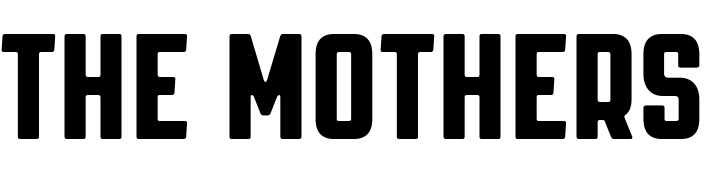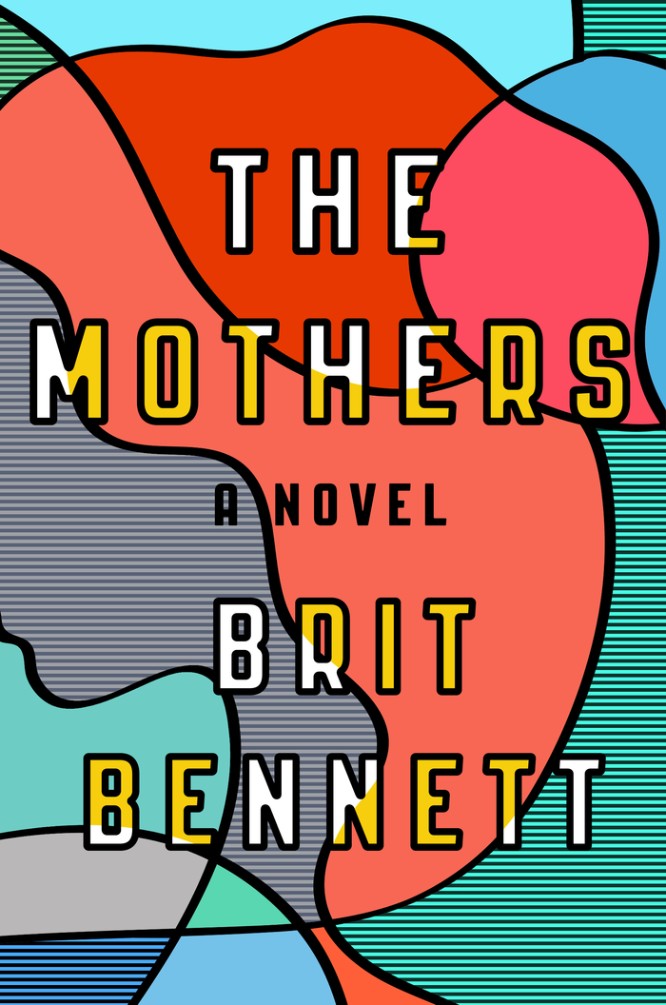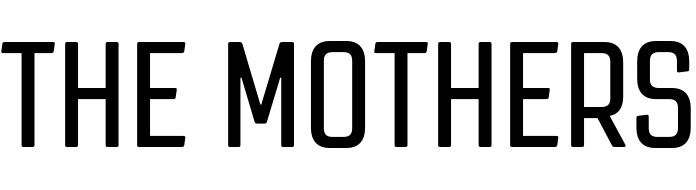
The Mothers Font
BookThe Mothers is a novel by Brit Bennett, published in 2016. It is a coming-of-age story about a young woman named Nadia Turner, who is struggling with the loss of her mother and the choices she makes in the wake of that loss.
PAG Revolucion from Prop-a-PAG ganda's Sans typeface is really similar to the sans serif font used for the book title lettering. The retro propaganda posters and wall paintings from Cuba's 1960s to 1980s served as the inspiration for the single-weight font. Then PAG Revolucion was updated and extended by the Flat-it type foundry, which released it as Revolution Gothic with lowercase characters, italics, and more weights. The new font family, which comes in 10 different styles, is suitable for a variety of retroactive purposes in your projects.